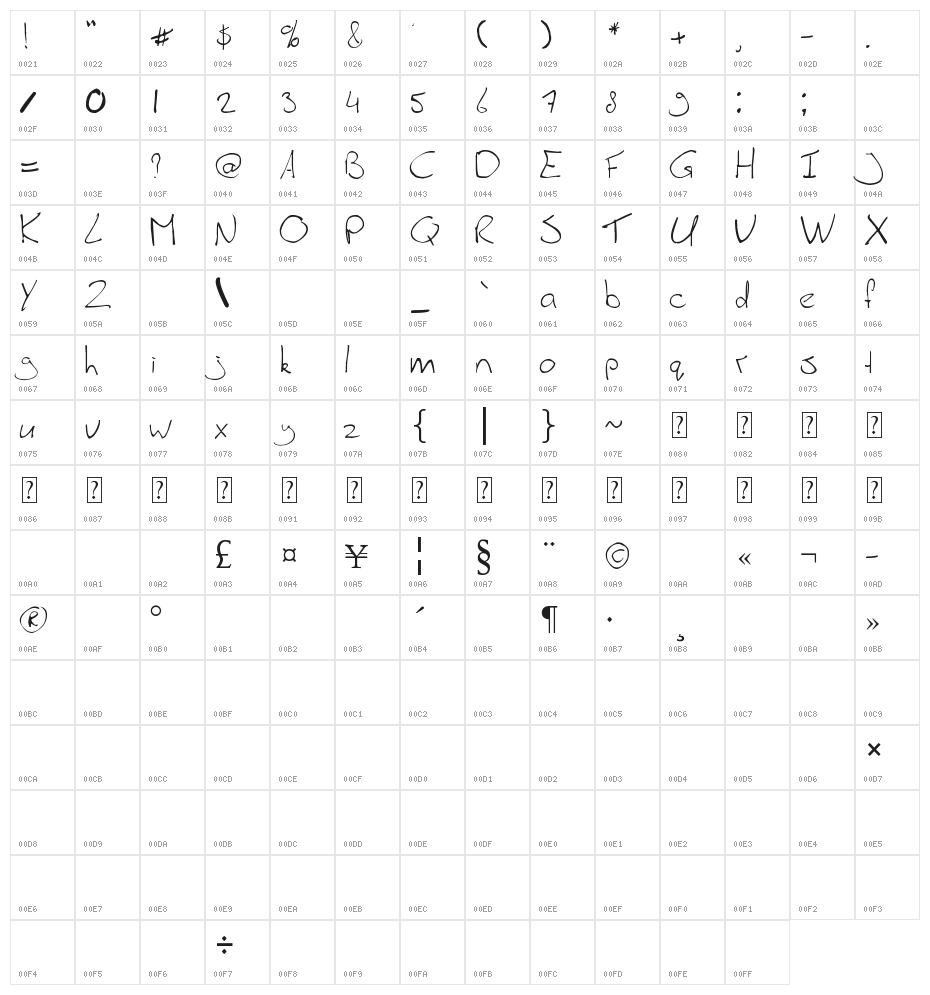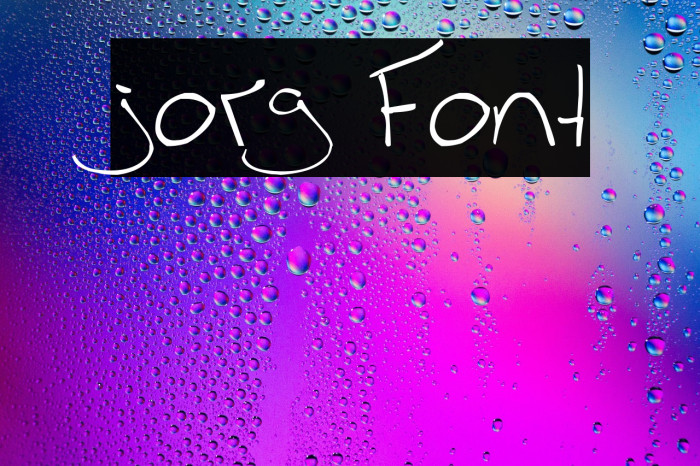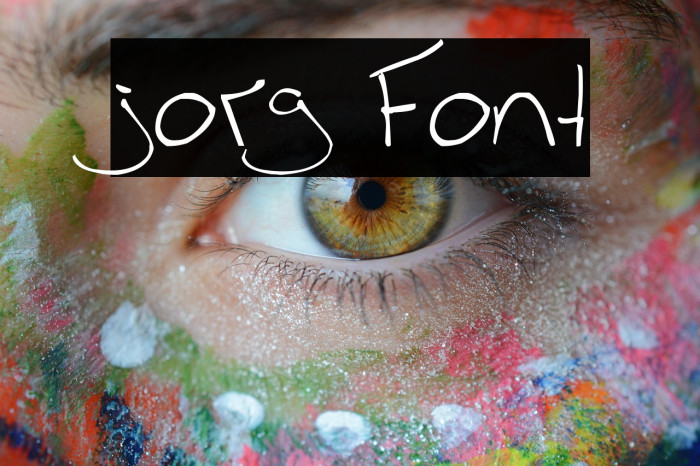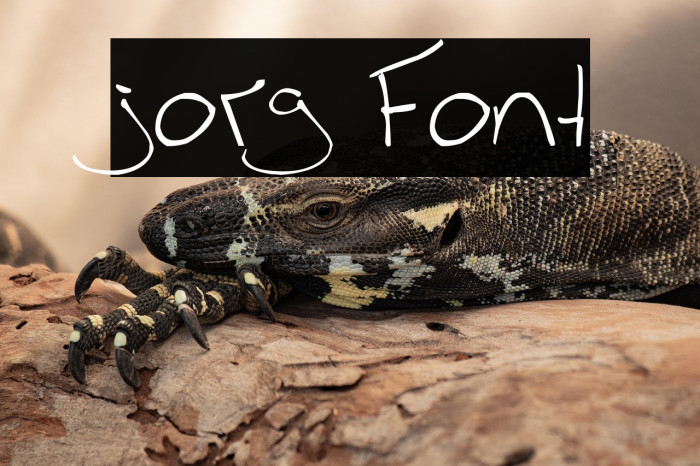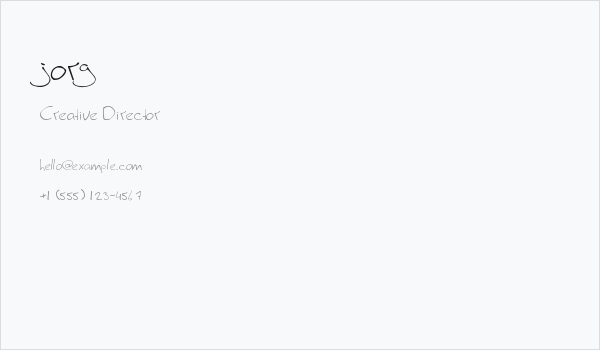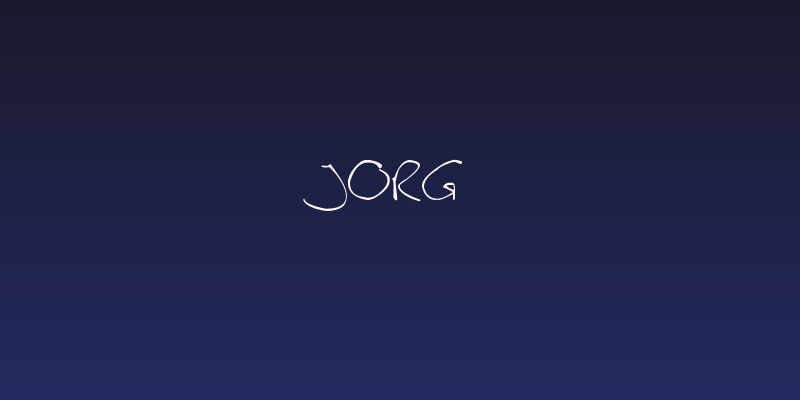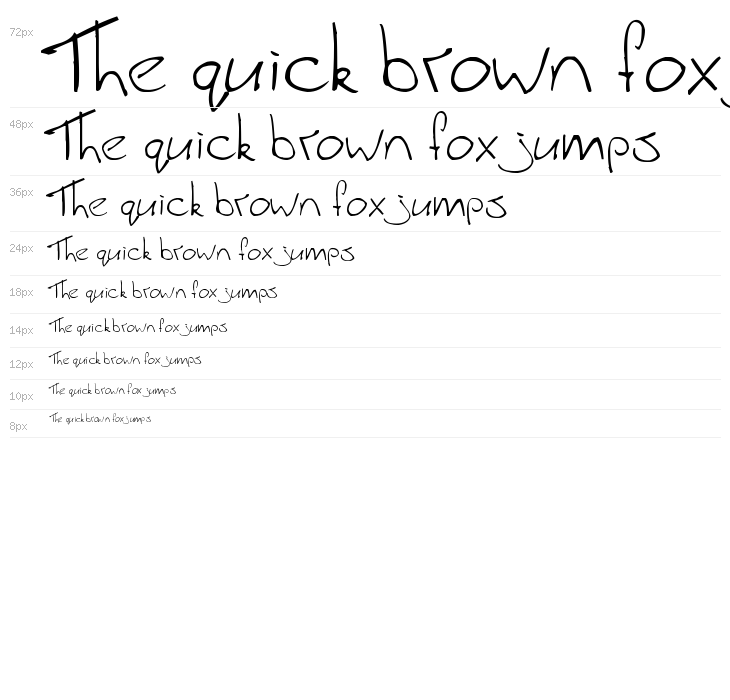
jorg Font
jorg Description
This font exudes a playful and casual handwritten style, characterized by its fluid and dynamic strokes. The letters are slightly irregular, giving it a personal and informal touch. The uppercase and lowercase letters maintain a consistent style, with a slight slant that adds to its relaxed appearance. The numerals and special characters follow the same aesthetic, ensuring a cohesive look across all text. The overall design is approachable and friendly, making it suitable for projects that require a human touch.
| Overall Style | Casual |
| Use Case | Headlines, Informal text, Personal projects |
| Proposed Projects | Ideal for greeting cards, personal blogs, informal invitations, and children's book illustrations. |